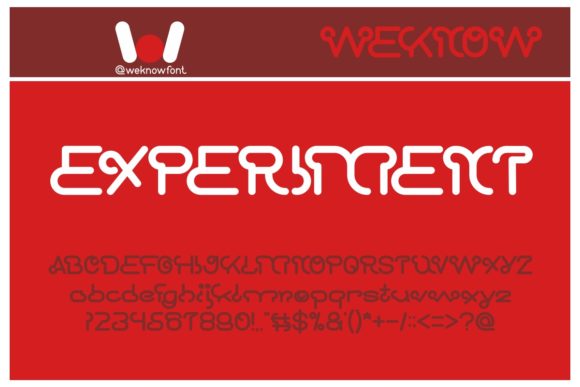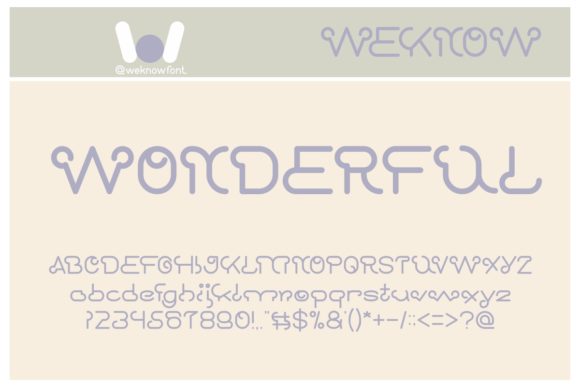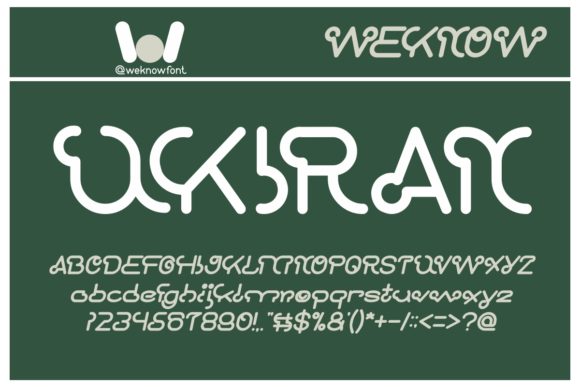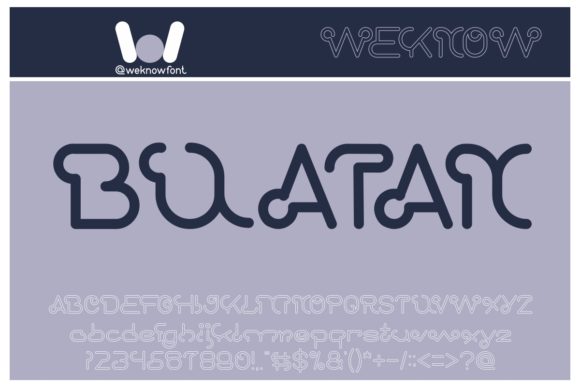
Introduction to Scooter Experiment Font
Scooter Experiment is an incredibly unique display font.
Scooter Experiment Font offers exceptional quality and versatility, making it a valuable addition to your design toolkit. Whether you’re creating for personal projects or commercial use, Scooter Experiment Font delivers professional results.